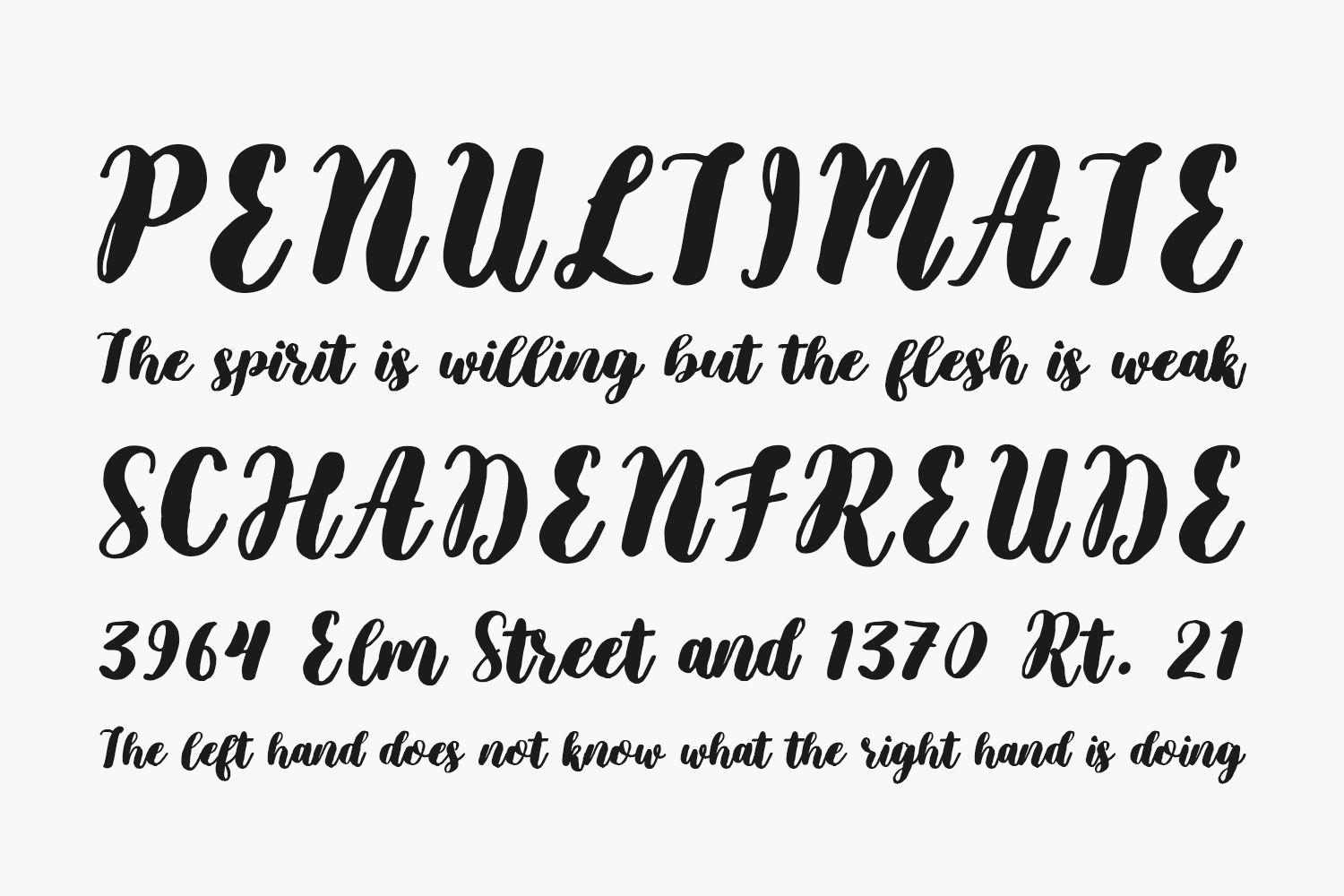
Filsafat Free Font is lettering calligraphy fonts, combines copperplate to contemporary typeface with a dancing baseline, classic and elegant touch. It can be used for various purposes, such as headings, signature, logos, wedding invitation, t-shirt, letterhead, signage, label, news, posters, badges, etc. Please purchase the full version for commercial use.
Designed by Best Font Studio